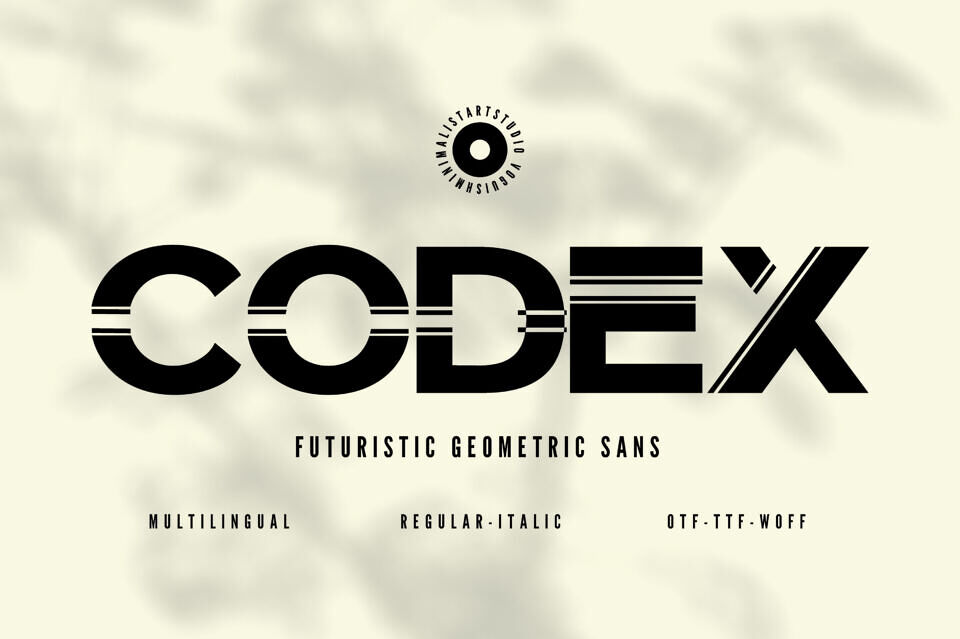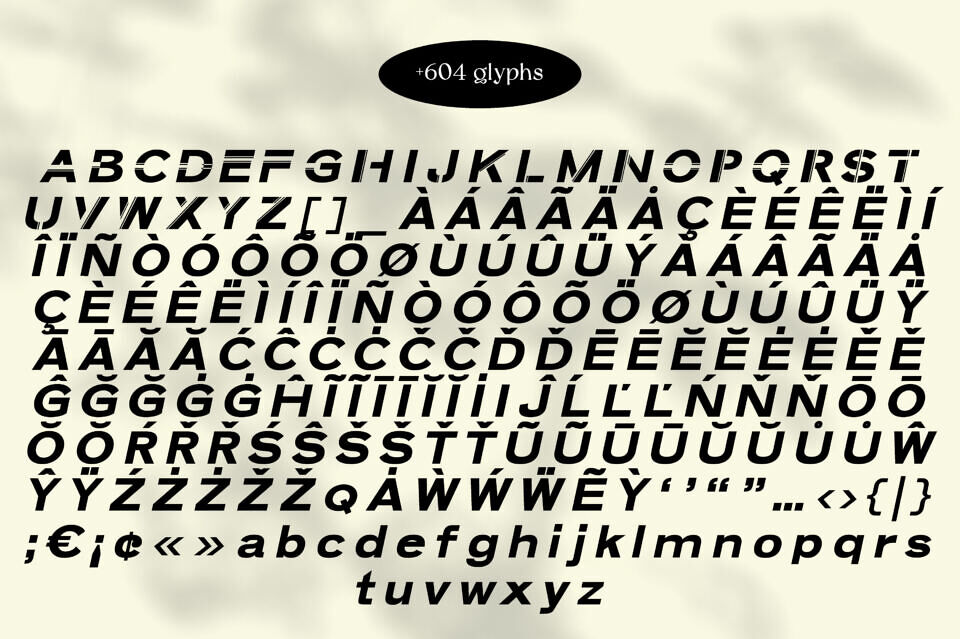
Codex Font
Codex is a minimalist typeface designed with precision and elegance. Featuring over 604 meticulously crafted glyphs, Codex combines geometric balance with a sleek, modern aesthetic, making it the perfect choice for contemporary design.
Its clean lines and uncluttered structure deliver clarity, sophistication, and versatility across branding, websites, marketing materials, logos, and tech-inspired projects. With alternates, ligatures, and extensive multilingual support, Codex ensures both style and functionality. From bold headlines to refined body text, Codex offers a timeless, futuristic design solution.